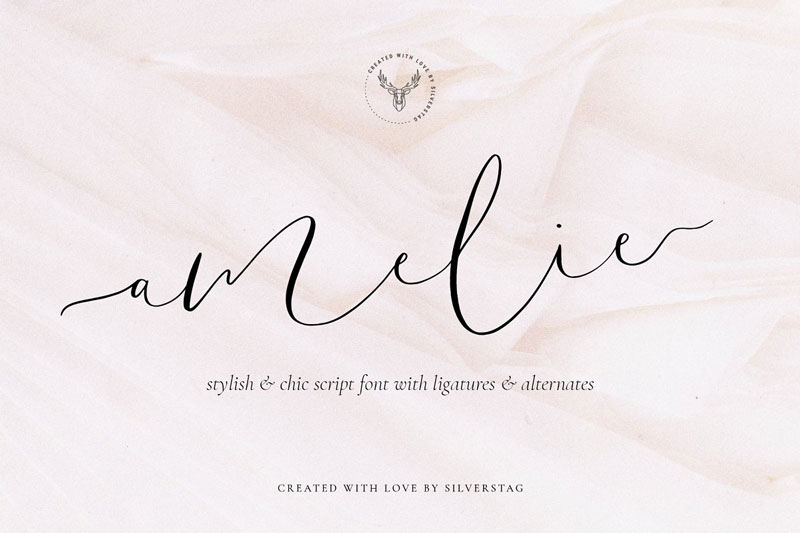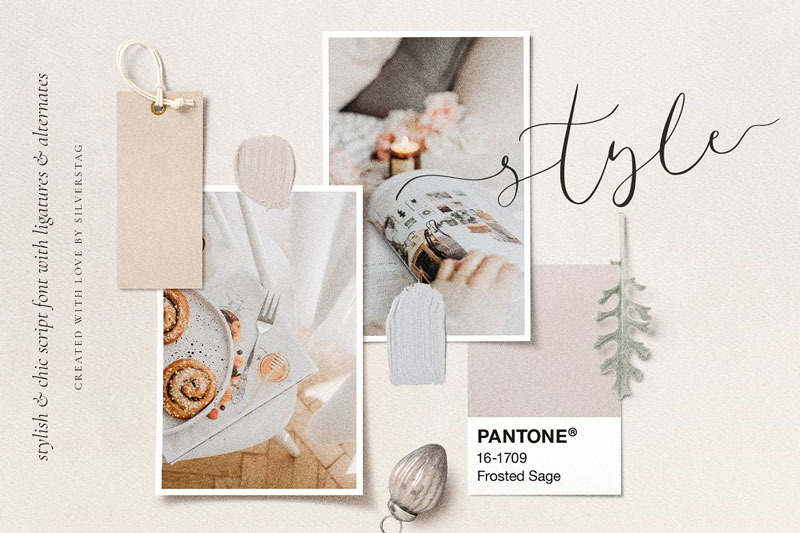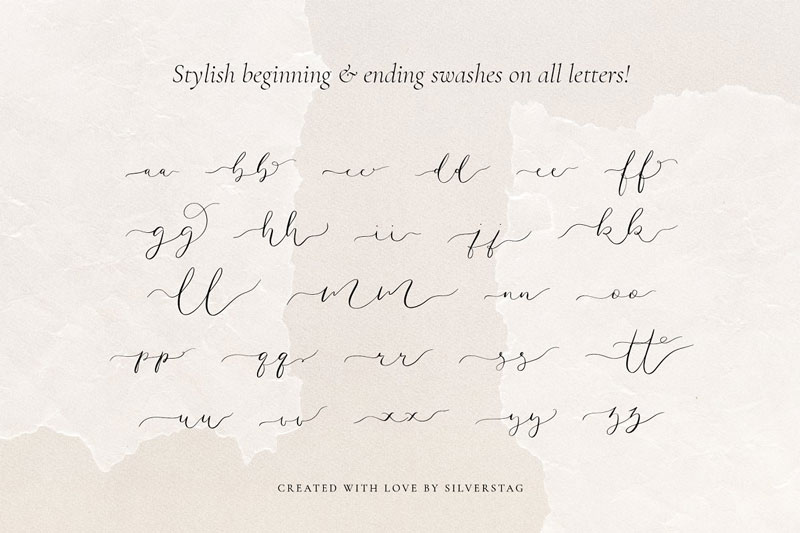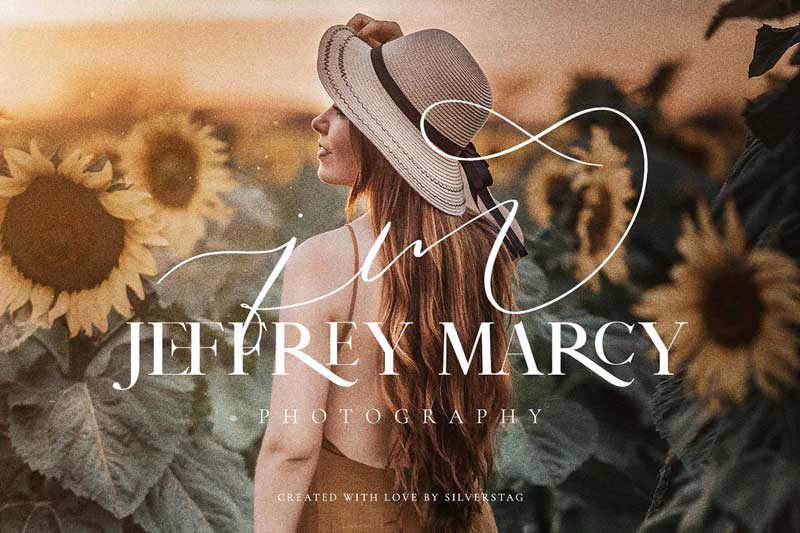
Amelie – Chic & Elegant Script Font 4723543
Amelie - Chic & Elegant Script Font 4723543
Amelie script font is perfect for all your branding projects, Instagram posts, and story templates, mood boards, wedding invitations and all other projects that you might have this year. I am really proud of how everything ended up so, please check out the screenshots above and let me know if you have any additional questions.
Each letter is hand-drawn and customized so whatever you use it for it will have that true signature style. Don’t forget to use alternates and turn on ligatures for a perfect handwritten look. Also checkout Geller Sans Font.
• One set of uppercase letters
• Two sets of lowercase letters
• Additional 2 sets of lowercase letters with swashes at the beginning and at the end
• Over 80 creative alternates & ligatures